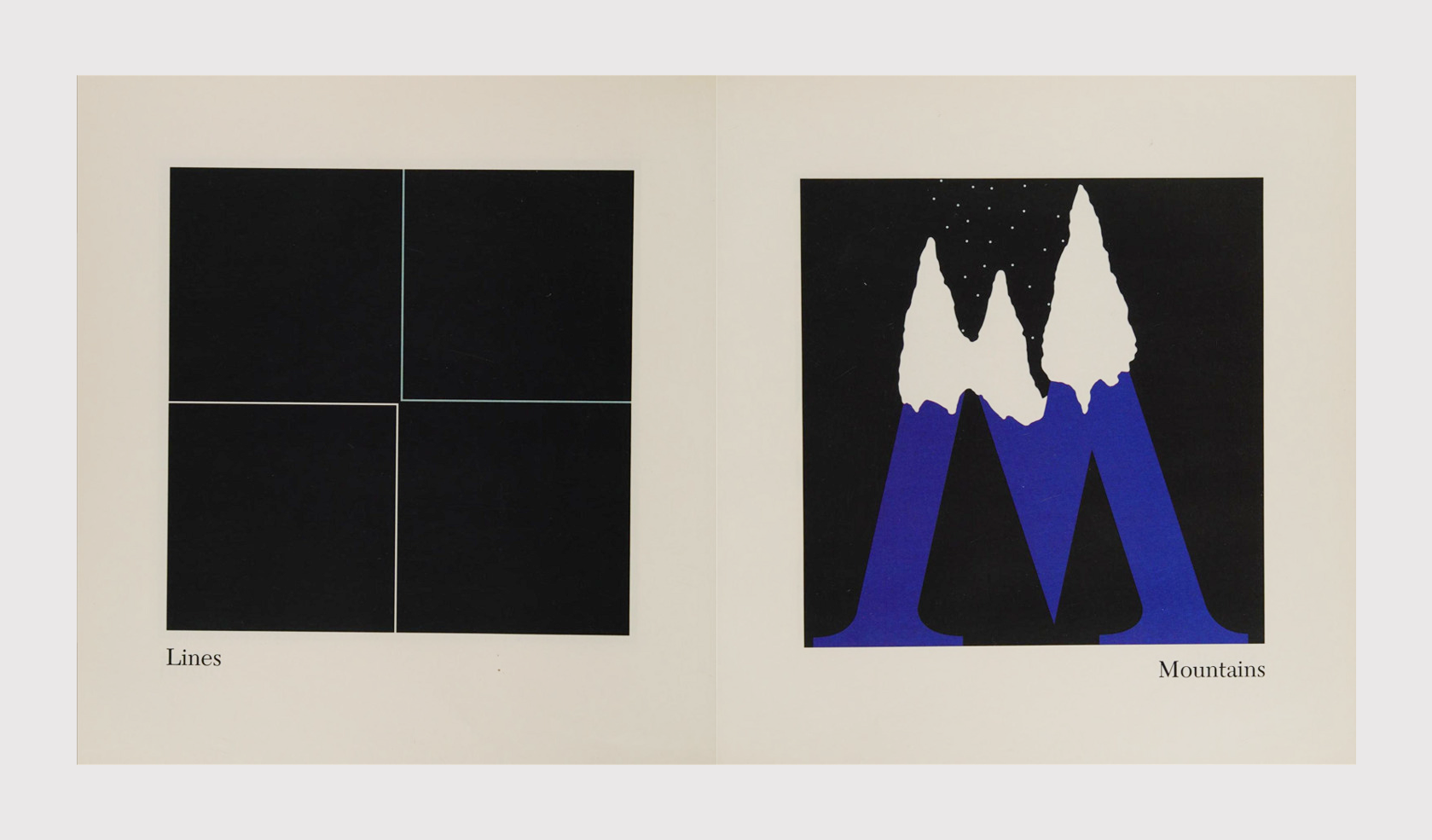
The graphic alphabet, 1996
David Pelletier
Age 4 to 8 years
An alphabet that looks like a lettering textbook. In this publication, designer David Pelletier stylizes each letter with minimal invasion, matching it to the word it starts with. For instance, the letter M (mountain) reveals snow-capped peaks, while the K (knot) has a knot at its stroke joint.
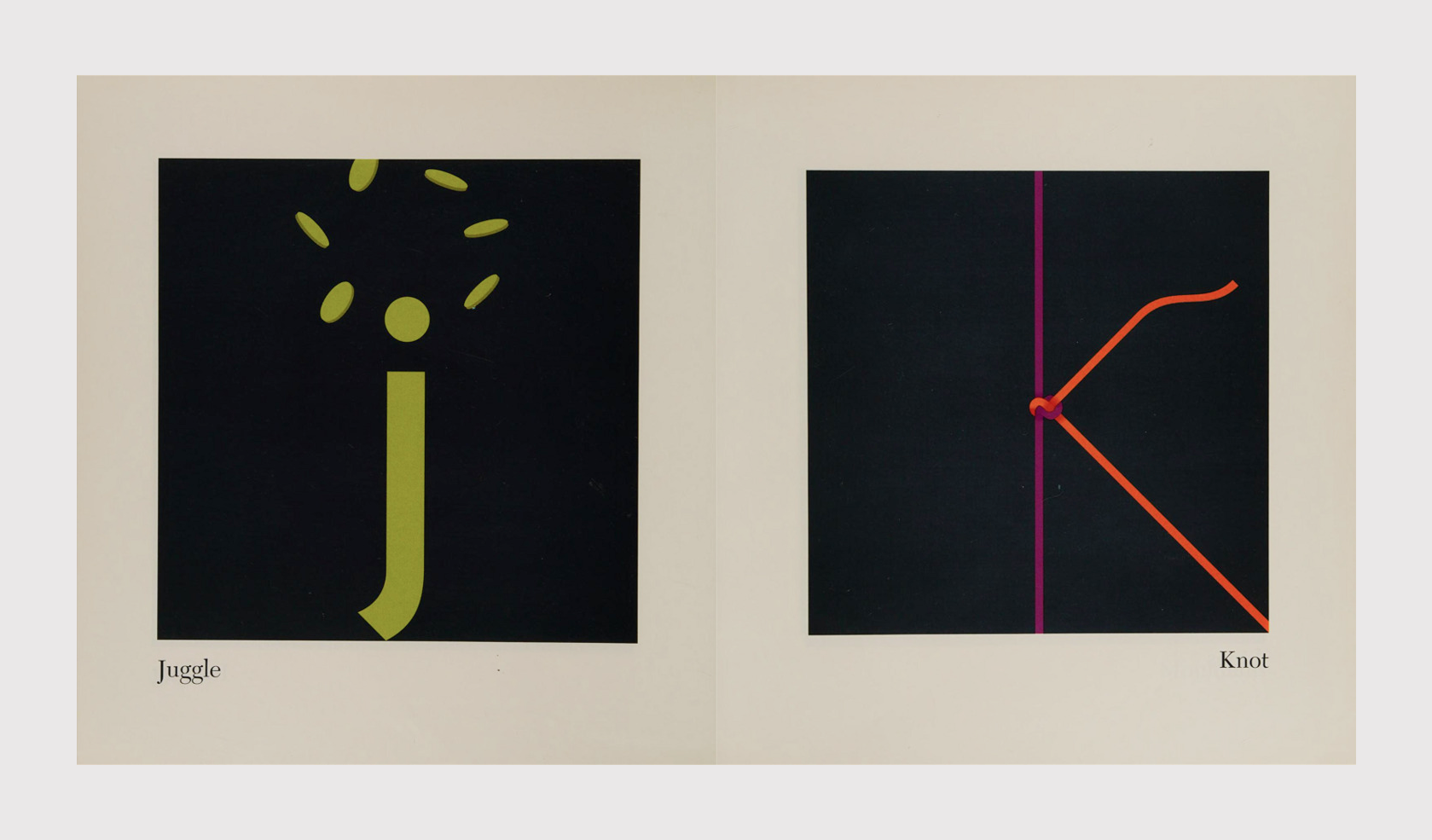
The Graphic Alphabet. Images: Marygrove College Library
The Serif Fairy, 2007
Translated from German
René Siegfried
Age 2 to 6 years
A little serif fee travels the typography world, wandering through Didot Gardens, Garamond Forest, and the streets of Futura Town, entering the Bodoni Castle and exploring the underwater world of the Shelly Lake. All the characters she meets in those places are made up entirely of the glyphs of corresponding typefaces.
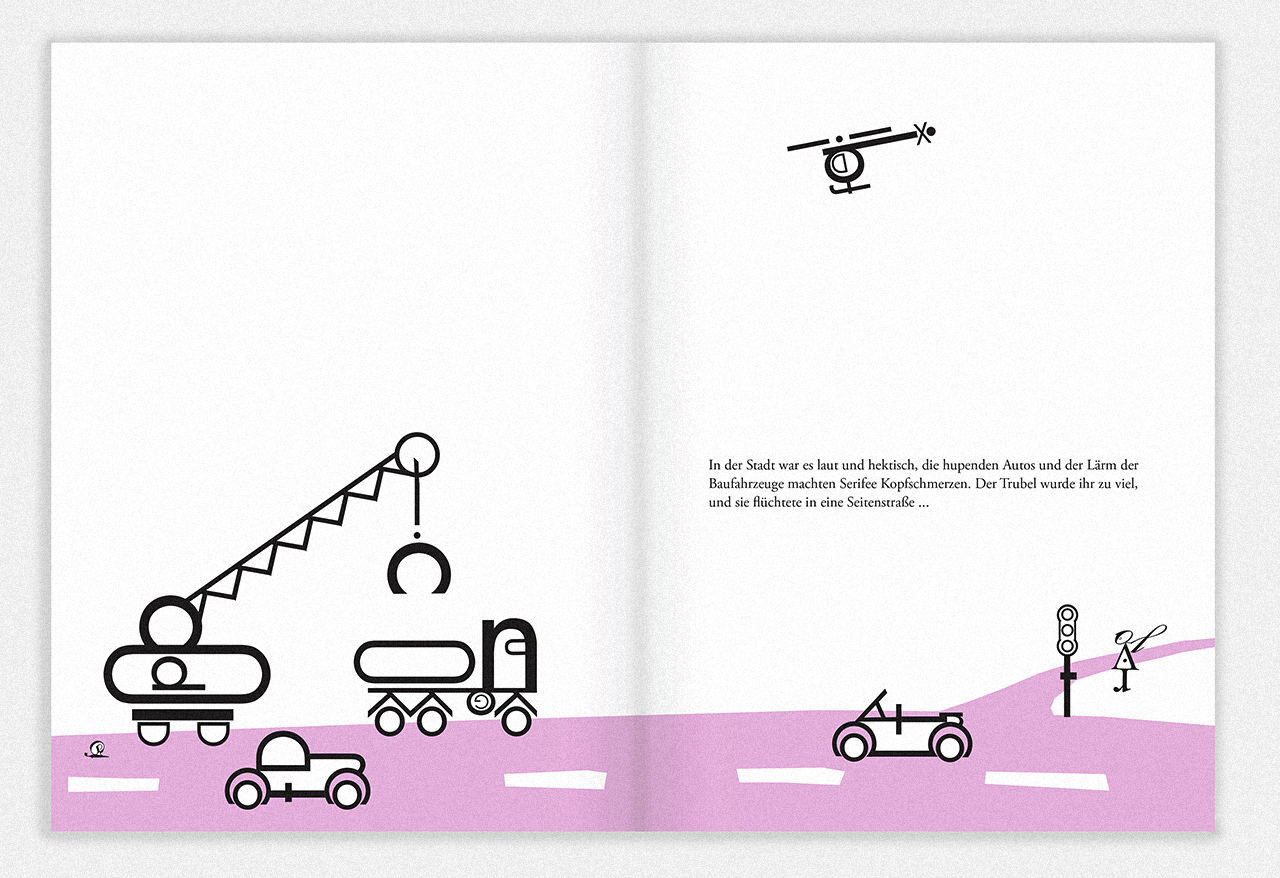
Die Kleine Serifee, the German edition of The Serif Fairy. Images: isbn.de
Are You My Typeface?, 2013
Jesse Austin-Breneman
For toddlers
A double-storey a meets different sans serif fonts (Gill Sans, DIN, Futura, Arial, Impact…), trying to figure out which typeface it is from. Ultimately, the letter finds out that her typeface is Helvetica.
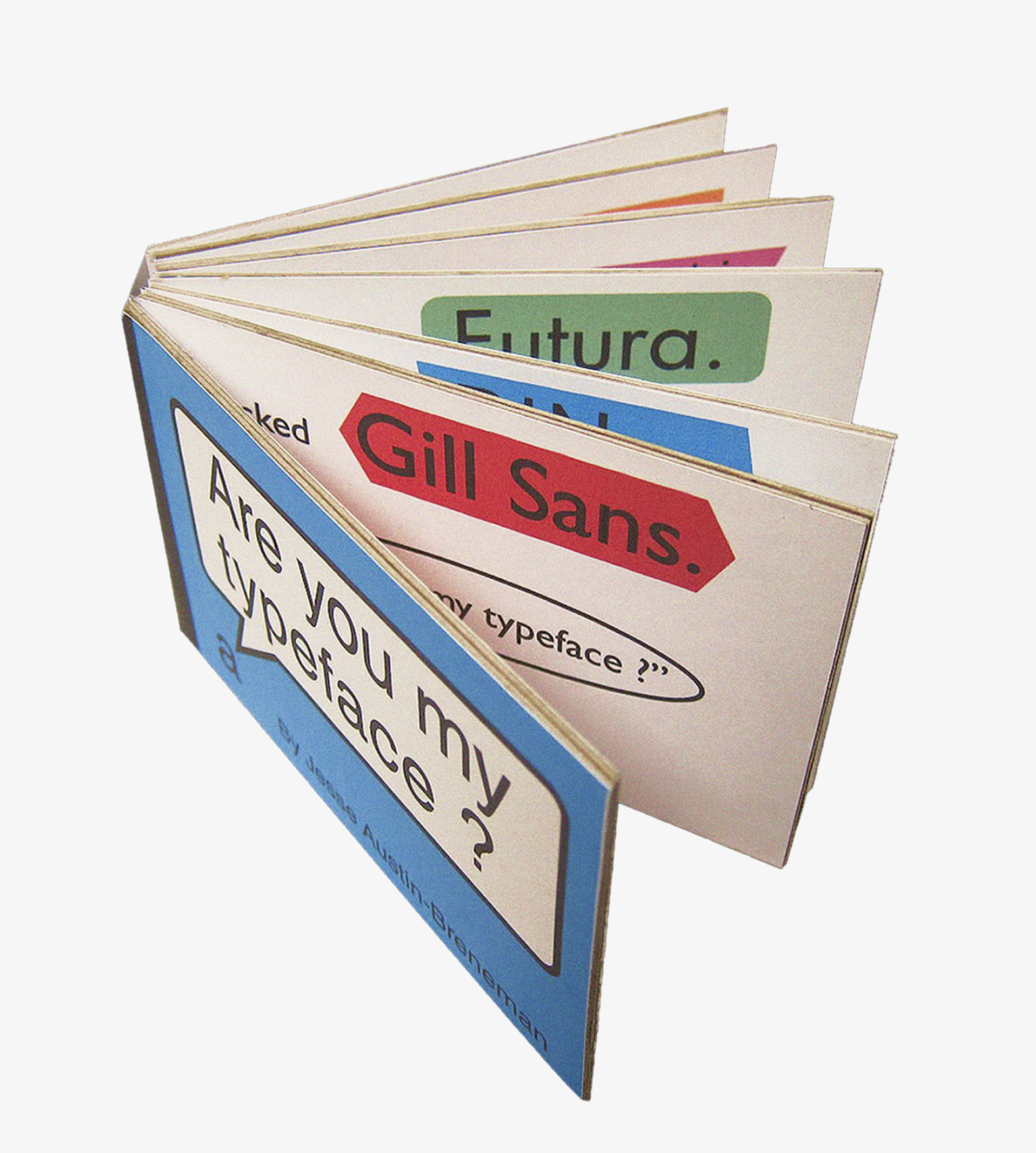
Are You My Typeface? Image: Jesse Austin-Brenneman, Kickstarter
The Clothes Letters Wear, 2014
Jeremy Dooley
For toddlers
Speaking in grown-up language, one would say that it is a book on how to design a type family based on only a skeleton. For instance, the letters on the pages of this book try on serif shoes and pick inline-striped dresses.
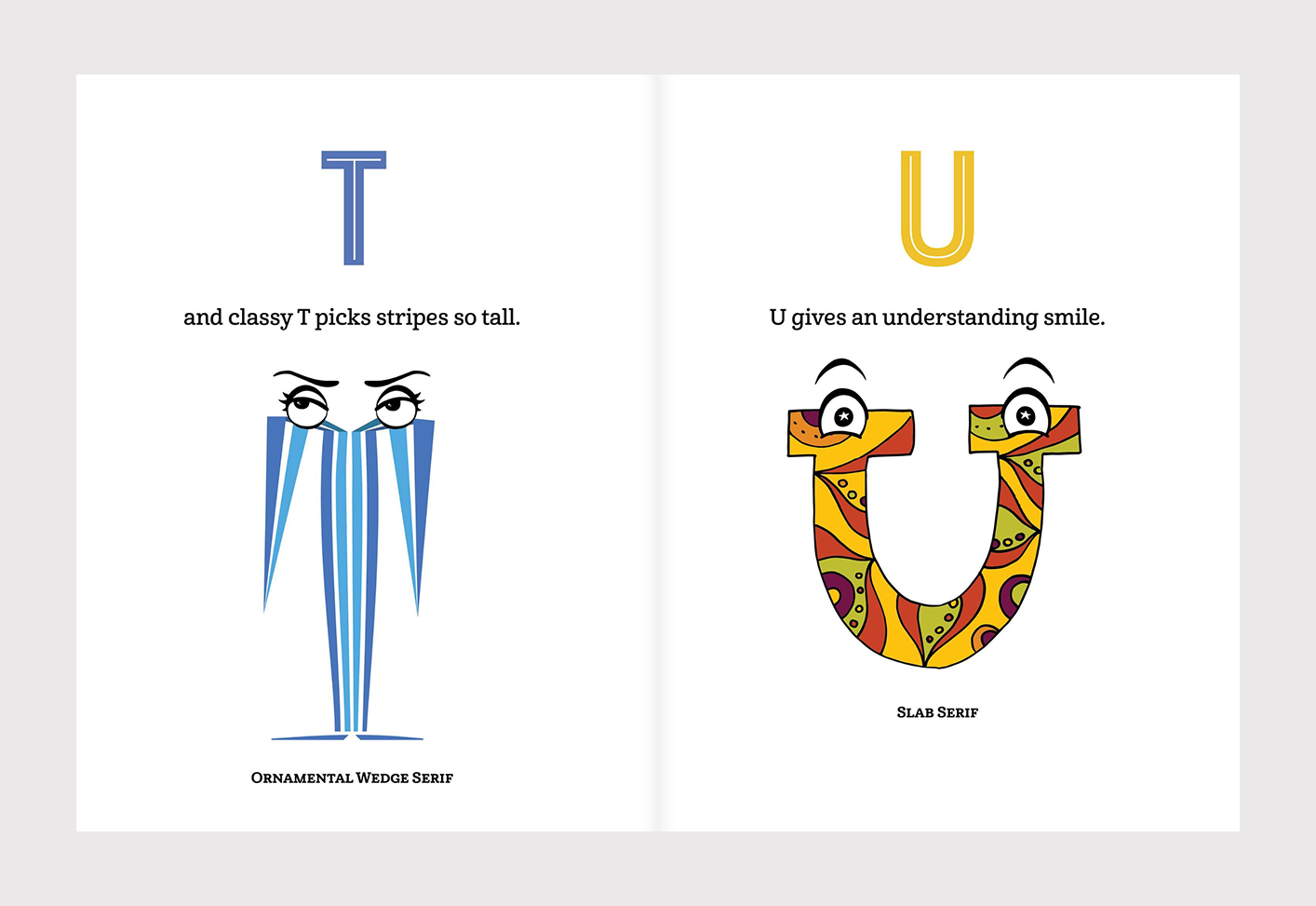
The Clothes Letters Wear. Images: Jeremy Dooley, Amazon
Printer’s ABC, 2019
Diana Dăgădiţă
An ABC book where each English letter is accompanied by three to five terms related to typography or letterpress printing techniques.
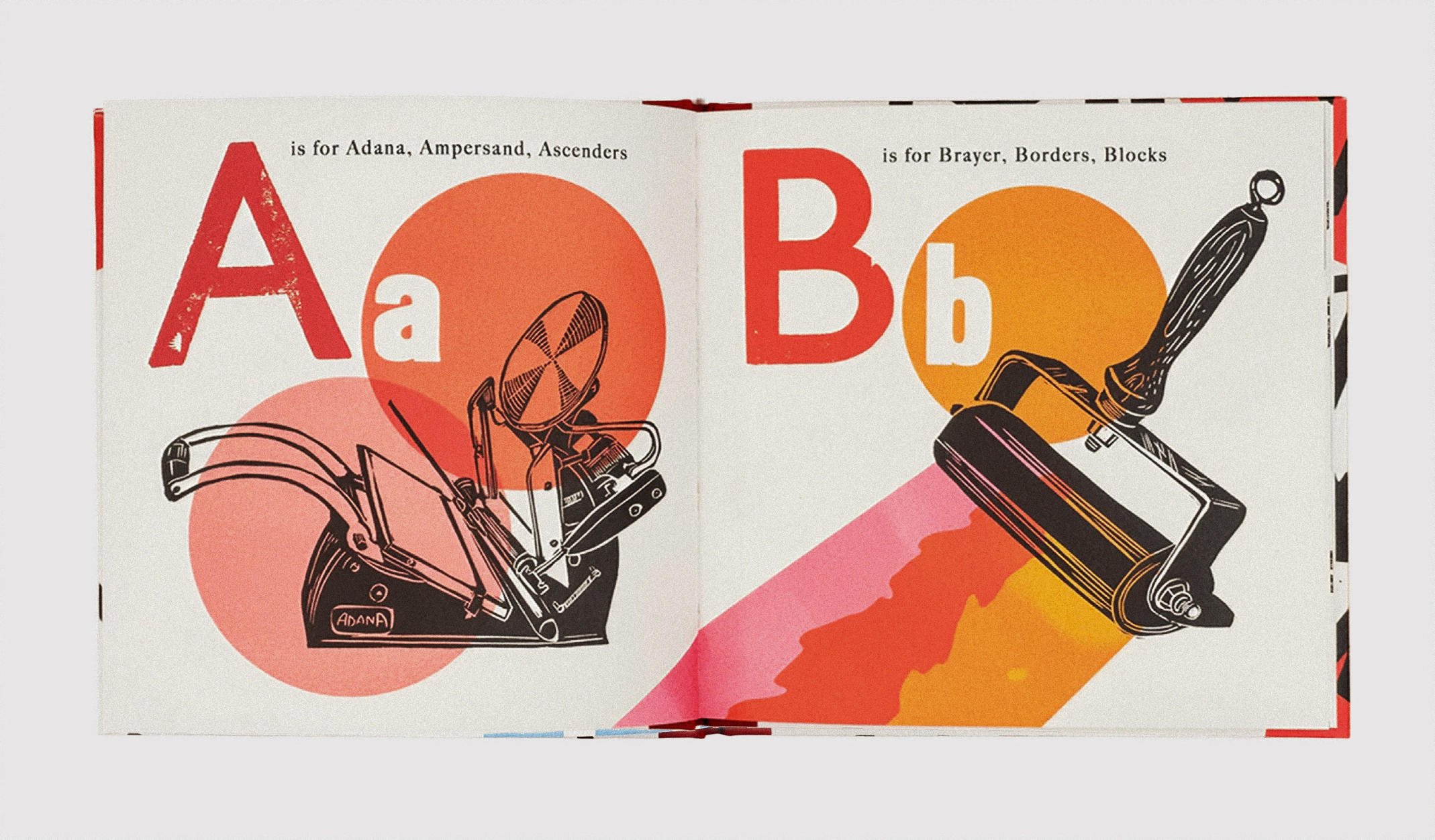
Printer’s ABC. Images: Hamilton Wood Type
The ABC of Typography, 2019
David Rault
The history of writing, from Sumerian cuneiform to the present day, is packed into a 128-page comic book.
The ABC of Typography. Image: Sling and Arrows
The night the fonts did something naughty; The night the fonts farted, 2020
Sarah Hyndman
Age 3 to 7 years
Two books that invite children to think about what a certain typeface or a typographic composition might sound or smell. As the framework story, both books tell what fonts do while designers don’t look at them.
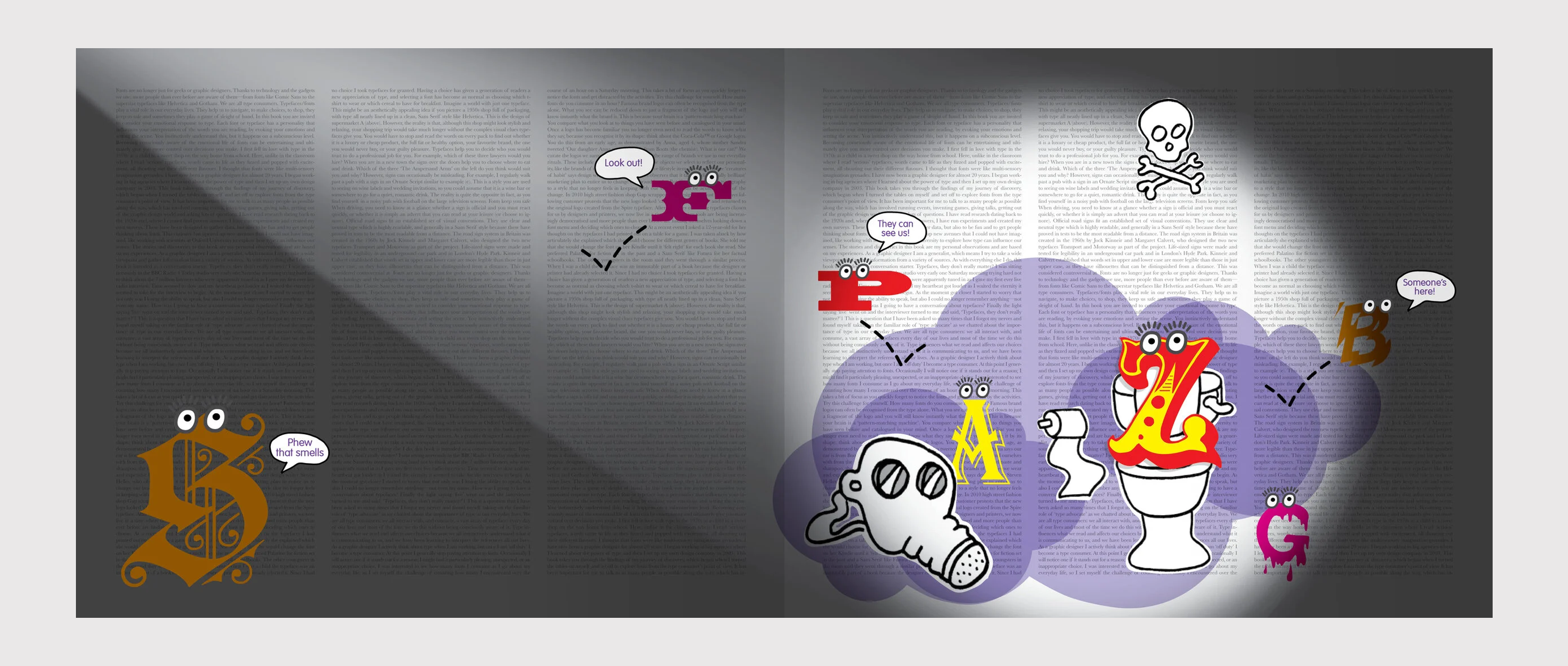
The night the fonts farted. Images: Typetasting
Meet the typographer, 2024
Translated from French
Gaby Bazin
Age 4 to 8 years
A book that briefly tells the history of typographic tools at different times, from styluses and clay tablets to letterpunches, and then takes you on a tour to explore the workshop of a typographer handling hot metal type.
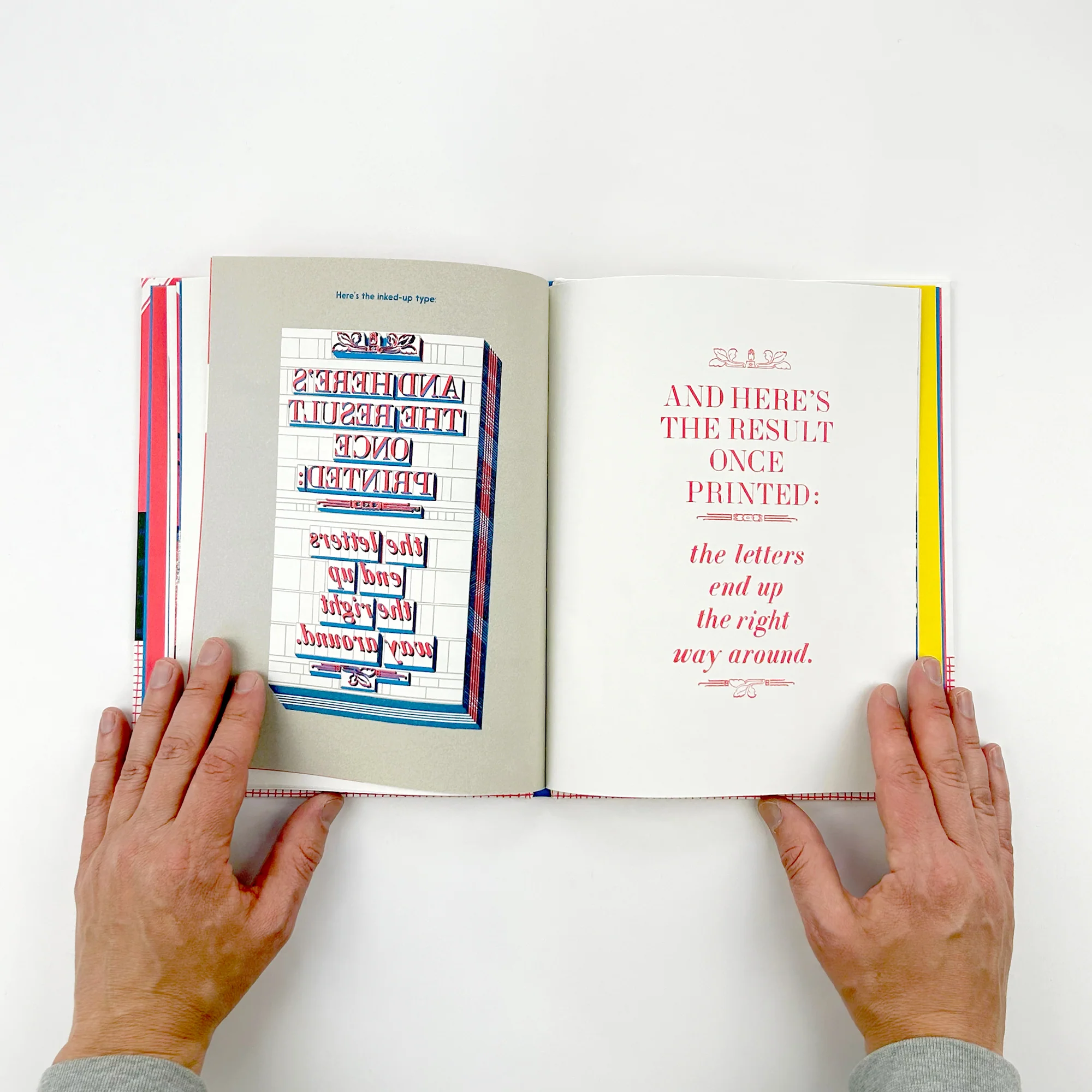
Meet the typographer. Images: Counterprint Books